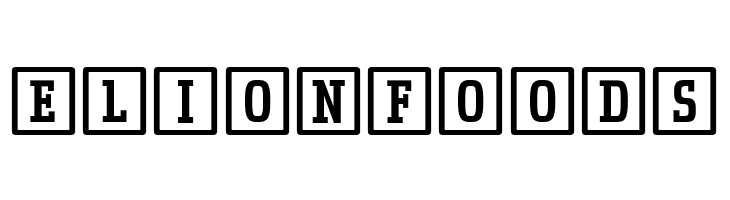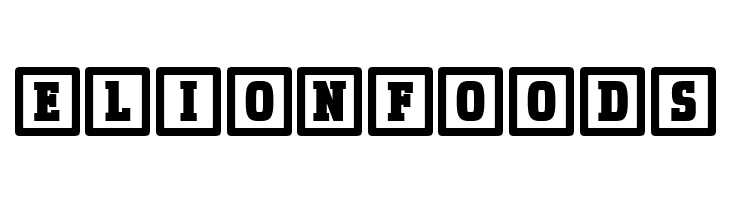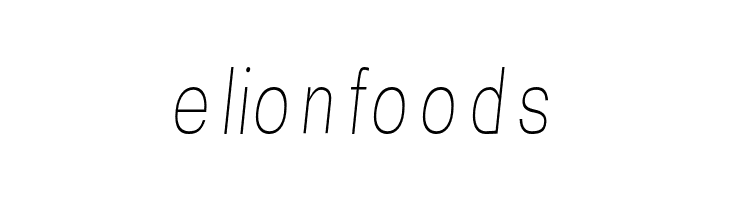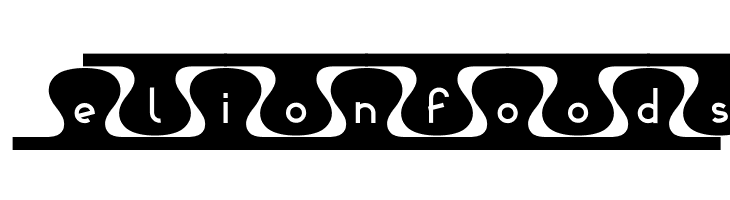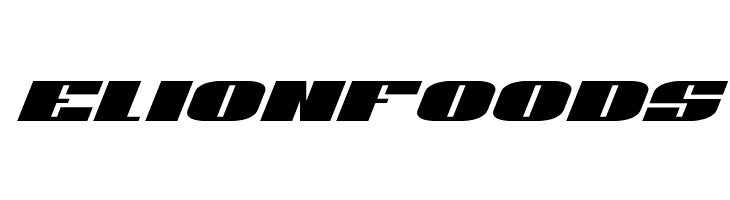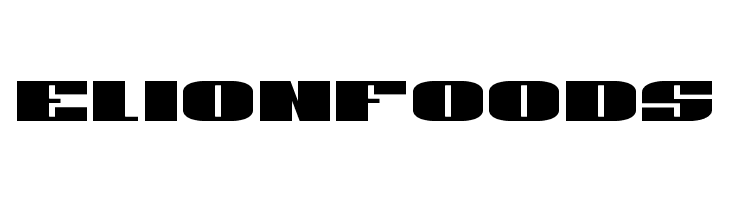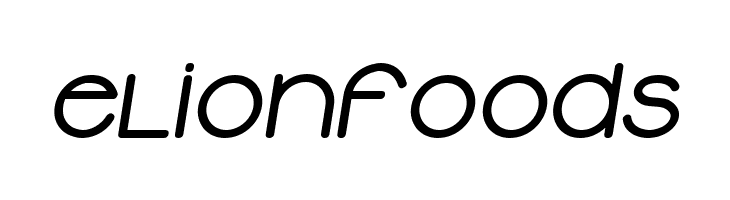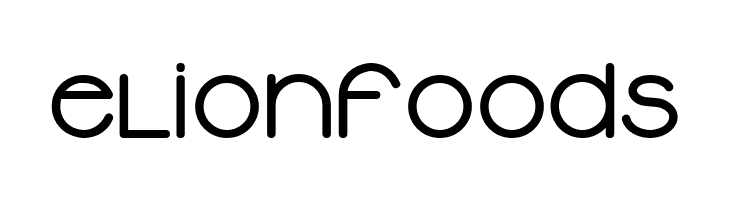
A modern, rounded font with a playful and geometric style.
A playful, bold, and italicized font with rounded, smooth characters.
A bold, extra-condensed font with a strong, geometric style.
A bold, extra-condensed italic font with high contrast and tight spacing.
( Uchrony is a condensed proportion slab serif typeface. The font family is made up of 3 styles, Roman, Small Caps & Italics, with 6 weights each (Extra Light, Light, Regular, Medium, Bold and Extra Bold). )
Bold, blocky font with characters in square frames, offering a strong visual impact.
( Uchrony is a condensed proportion slab serif typeface. The font family is made up of 3 styles, Roman, Small Caps & Italics, with 6 weights each (Extra Light, Light, Regular, Medium, Bold and Extra Bold). )
A bold, boxed font with a modern and structured design.
( Uchrony is a condensed proportion slab serif typeface. The font family is made up of 3 styles, Roman, Small Caps & Italics, with 6 weights each (Extra Light, Light, Regular, Medium, Bold and Extra Bold). )
A bold, blocky font with characters enclosed in geometric borders, offering a modern and structured look.
Hand-drawn, marker-style decorative doodle font.
A playful, zipper-inspired decorative font with rounded, bulbous shapes.
A sleek, extra-condensed italic font with a modern and elegant style.